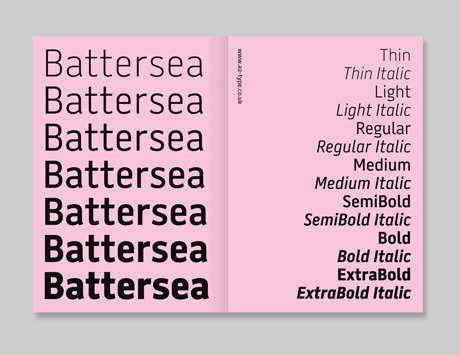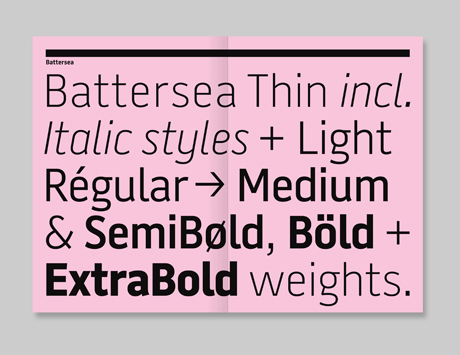
Designer:
Henrik Kubel – a2-type.co.uk
Category:
Sans serif
Like many type designers, London-based Dane, Henrik Kubel, has had a fascination with letterforms since childhood. Kubel studied at Denmark’s Design School and the Royal College of Art in London. He has recently released an updated version of his 1998 typeface, Battersea. Its distinctiveness reflects the 21st century fascination that type designers have for sans serif fonts.
What inspired the design of your typeface?
Battersea was very much my first attempt to draw a sans serif typeface. I had just moved to London and started my MA studies at the Royal College of Art in 1998. I began the design in mid-1998 and released it in three weights in 1999. The font was inspired by three faces: Transport Alphabet by Margaret Calvert and Jock Kinneir (used on all British road signs), DIN (Deutsches Institut für Normung or German Institute for Standardisation, but often incorrectly expanded as Deutsche Industrie Norm or German Industry Standard) and Erik Spiekermann’s New Helvetica Meta.
What was the first character you designed and why?
I remember starting with the lowercase letters ‘a’, ‘n’, ‘o’ and ‘g’.
Is it important for a typeface to have a few distinctive characters to make it more memorable?
Yes, in this case I think it’s the ‘a’, ‘g’ and ‘u’.
What design challenges did you confront and how did you resolve them?
I remember that my biggest challenge at the time (14 years ago!) was the spacing and kerning of the font(s).
What do you see as the typeface’s ideal uses?
The typeface was drawn to be used in large point sizes, for signs, but also to work in text. I was very much interested in both sizes. Battersea was first released in three weights: Regular, Medium and Bold in 1999 by Acme Fonts in London and stayed with them until I withdrew it from the market in 2009. I completely redrew, updated and expanded the character set and added a long overdue italic style to the font (in collaboration with American type designer Jeremy Mickel). Battersea (in its new form) was re-released in 2011 and now has an advanced character set, seven weights ranging from Thin to ExtraBold plus accompanying Italics. It is also available as a web font through our web font partner WebINK.
Where did the name of the typeface come from and what is its significance?
My first home in London was in the part of the city called Battersea; it seemed a natural decision.
Why do so many type designers seem to be interested in designing new sans serif typefaces?
I am fascinated by the simplicity and impact a sans serif typeface can add to a piece of communication. It’s interesting and always a great joy to be working within the limited possibilities of this specific type category. I have drawn many sans/grotesque fonts and each time I try to find a new way of looking at this specific style of type.
Many type designers seem interested in designing new display typefaces, but are text typefaces more challenging to design?
Both text and display fonts are challenging to design; many times text faces end up as display fonts and sometimes it’s the other way around. To give an example, our recent typeface, India, would be difficult to read at a small point size, whereas our latest release Antwerp, designed as a text face, can easily be adapted to work as a display font.